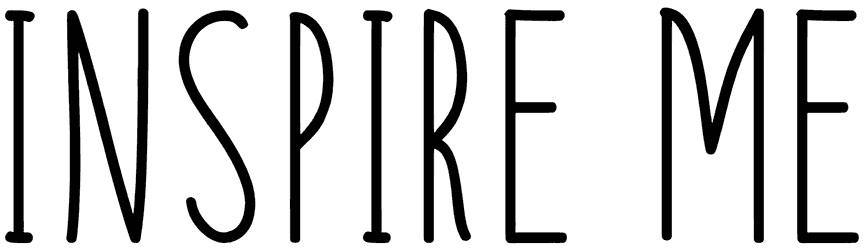
Inspire Me Font
Let’s see how ravishing your design will be when you set this tall font on your words. The Inspire Me font doesn’t cover lowercase letters and numerals, but you can use it for different layouts. Benefit from this minimalist font for your new daily Instagram post, or other creative designs, and convey a casual vibe.